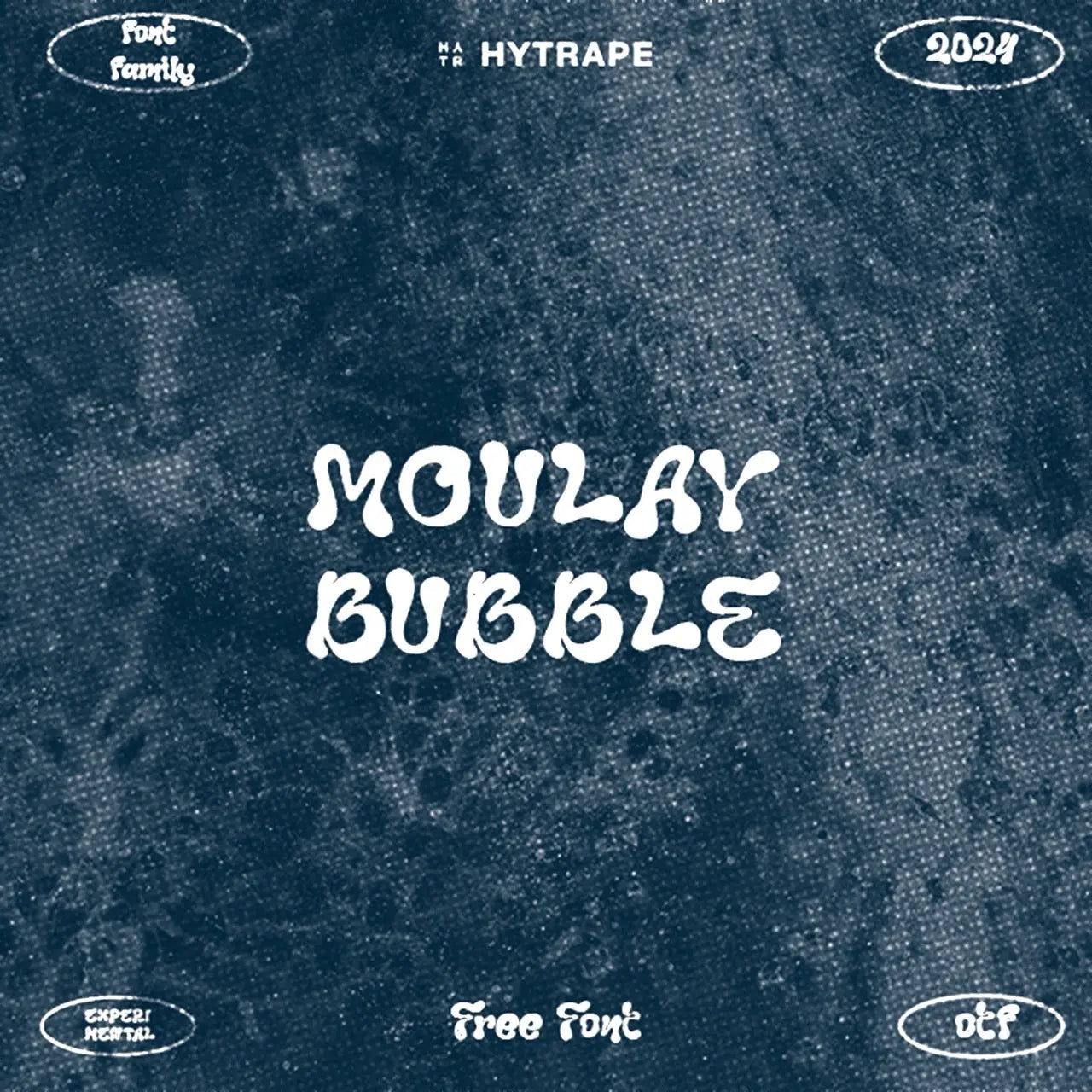
Moulay Bubble is a round, puffy font with wavy outlines in a bubble spirit. For pop visuals, packaging and cheerful posters.
This experimental font is designed for professional users looking for unique and original typography.